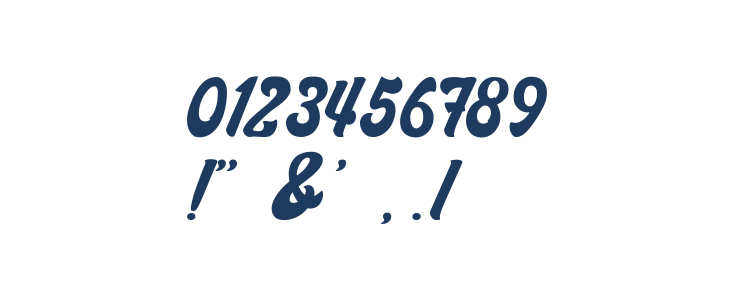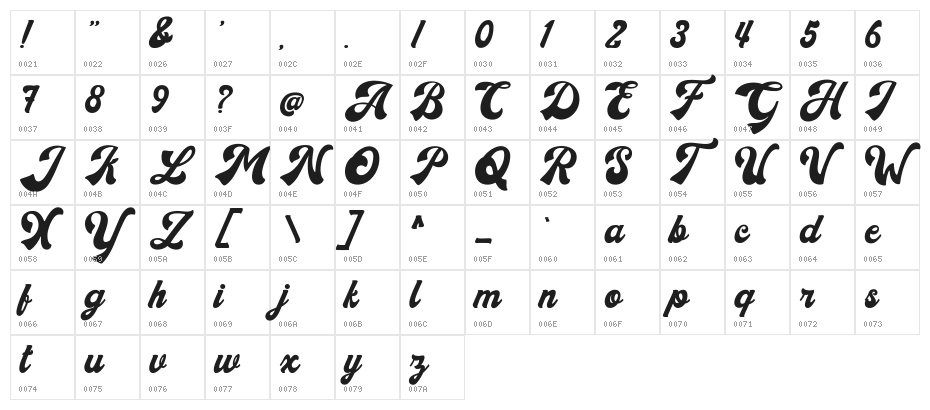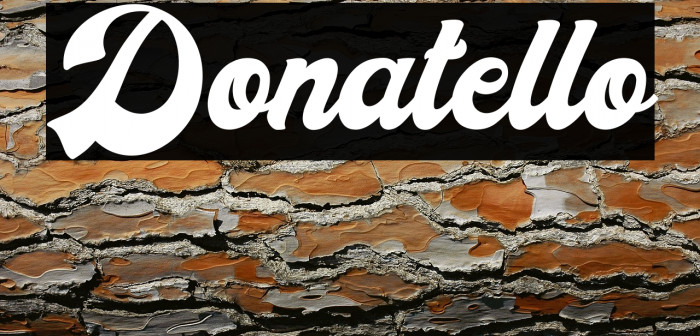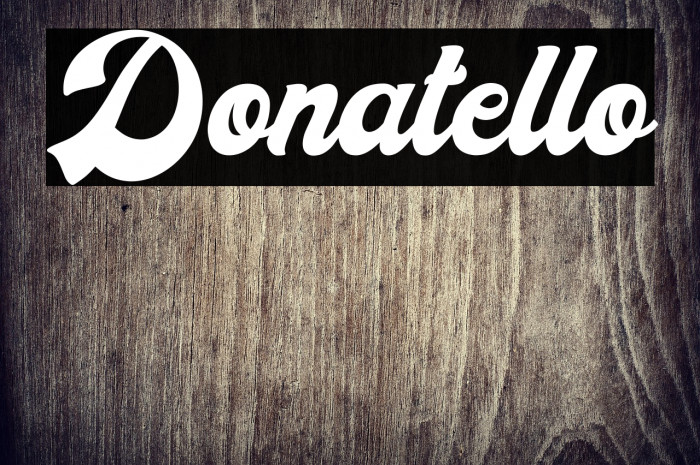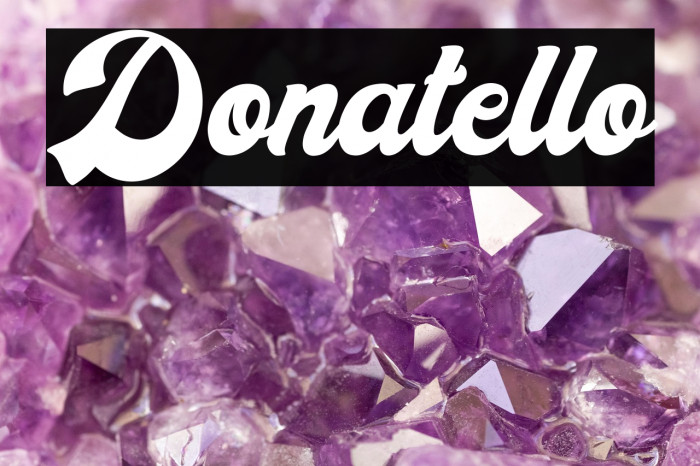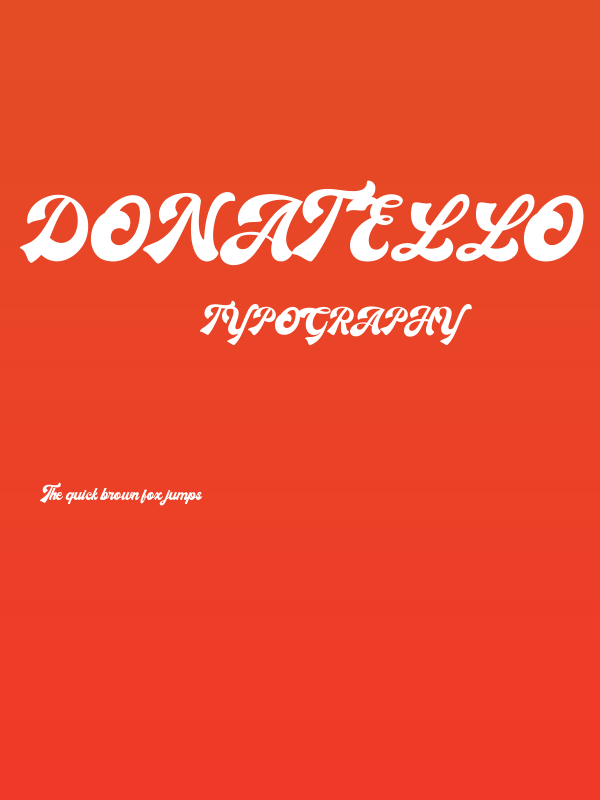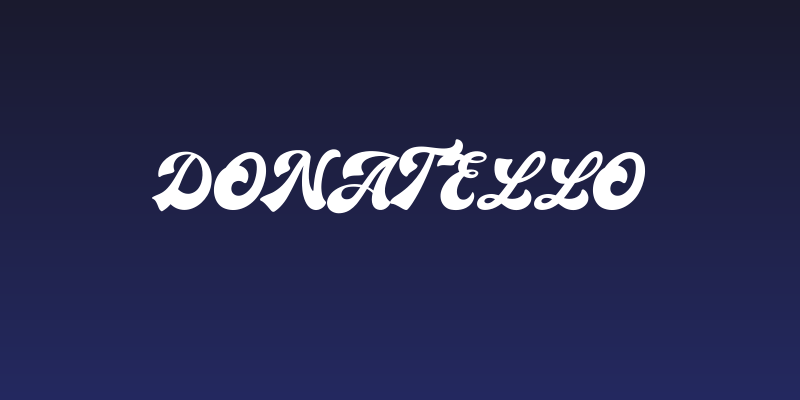
Donatello Font
Donatello Description
This font features a bold, cursive style with a strong presence and fluidity. The uppercase letters are characterized by their sweeping curves and elegant flourishes, while the lowercase letters maintain a consistent flow with rounded edges and smooth connections. The numerals are bold and slightly slanted, complementing the overall script style. Special characters are designed with the same attention to detail, ensuring they blend seamlessly with the rest of the typeface. The font's boldness and decorative nature make it suitable for eye-catching designs.